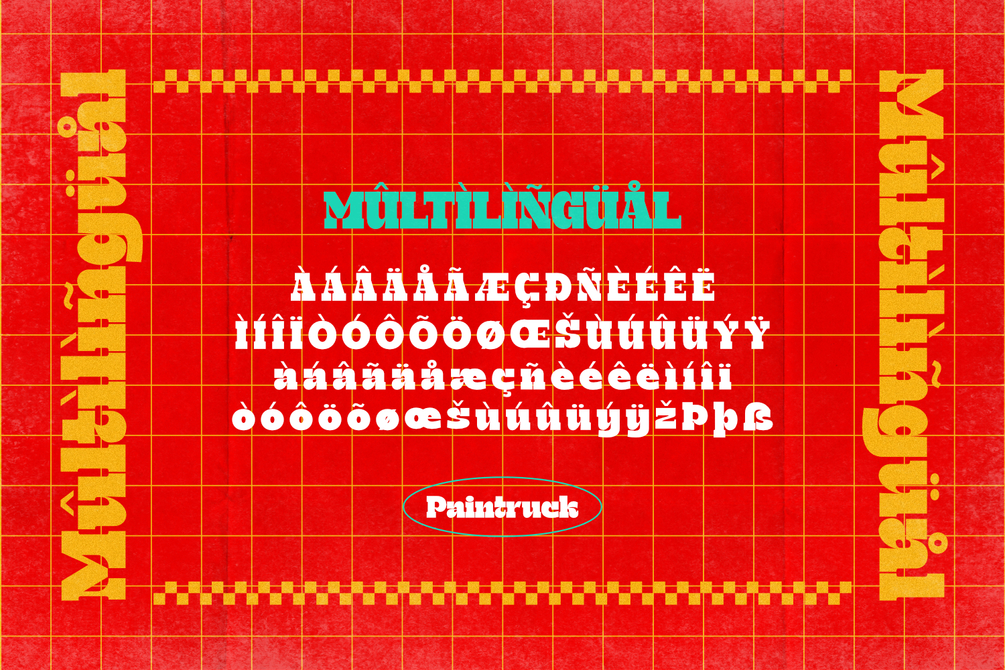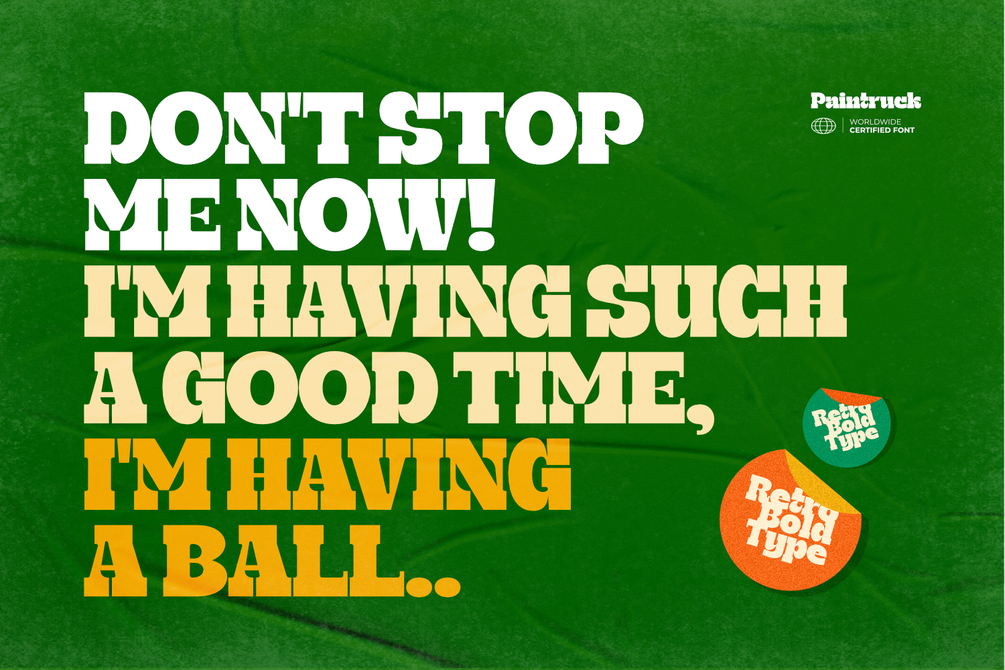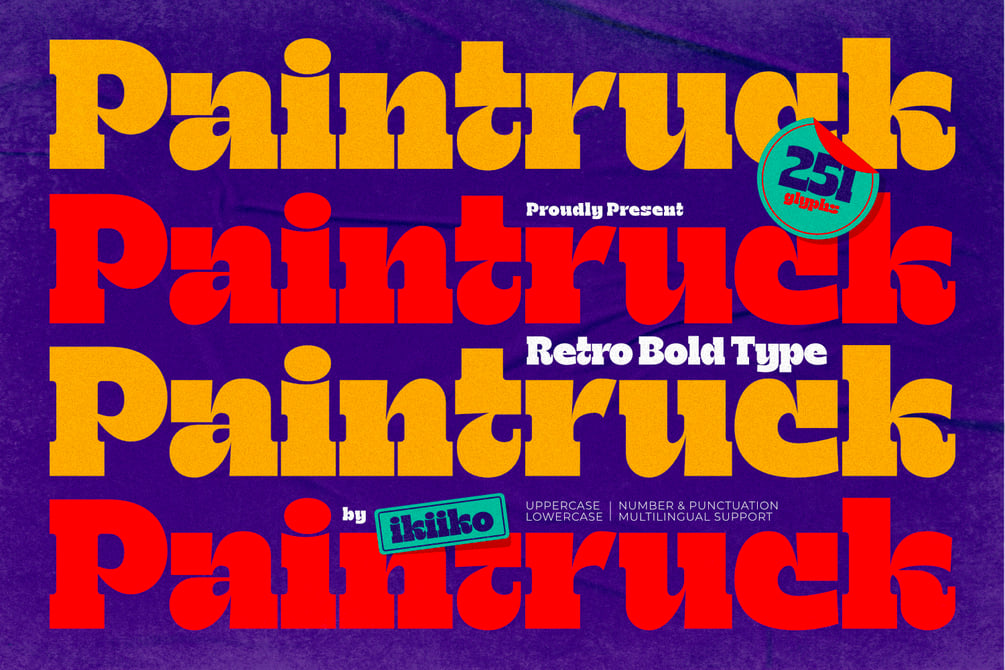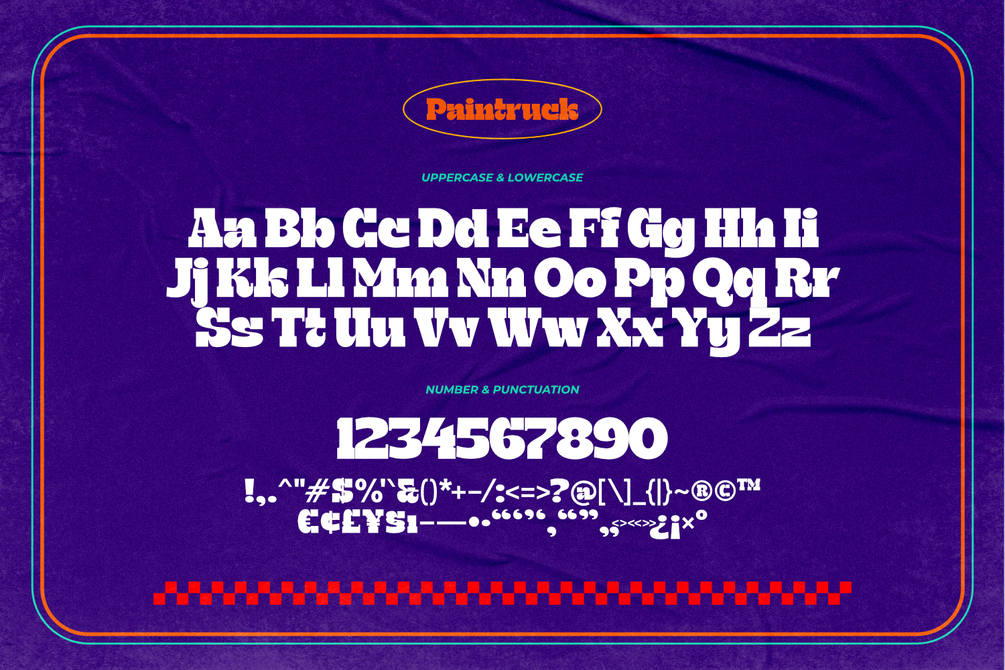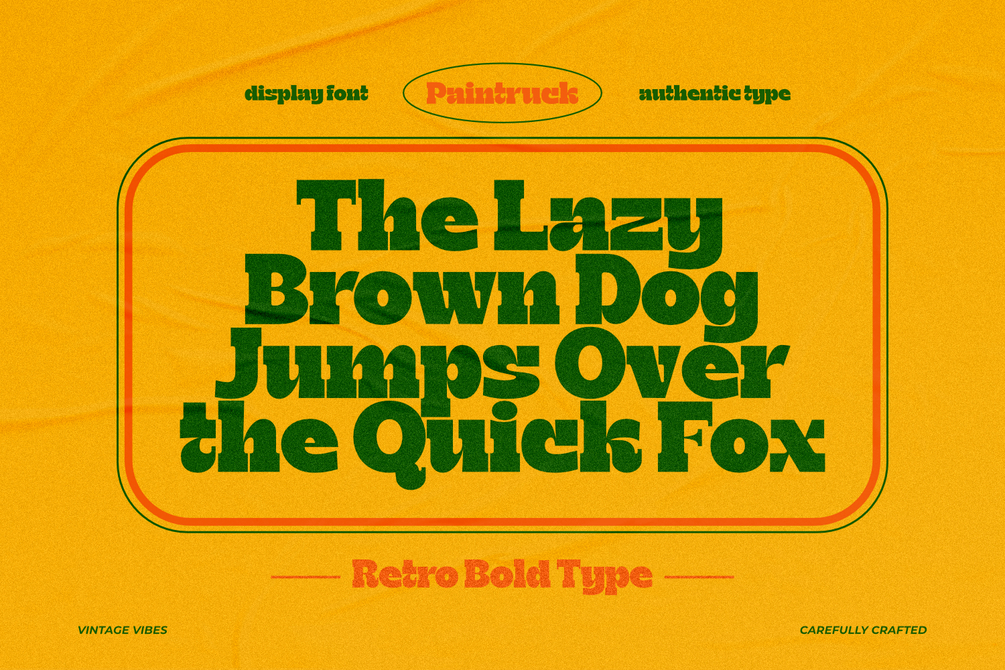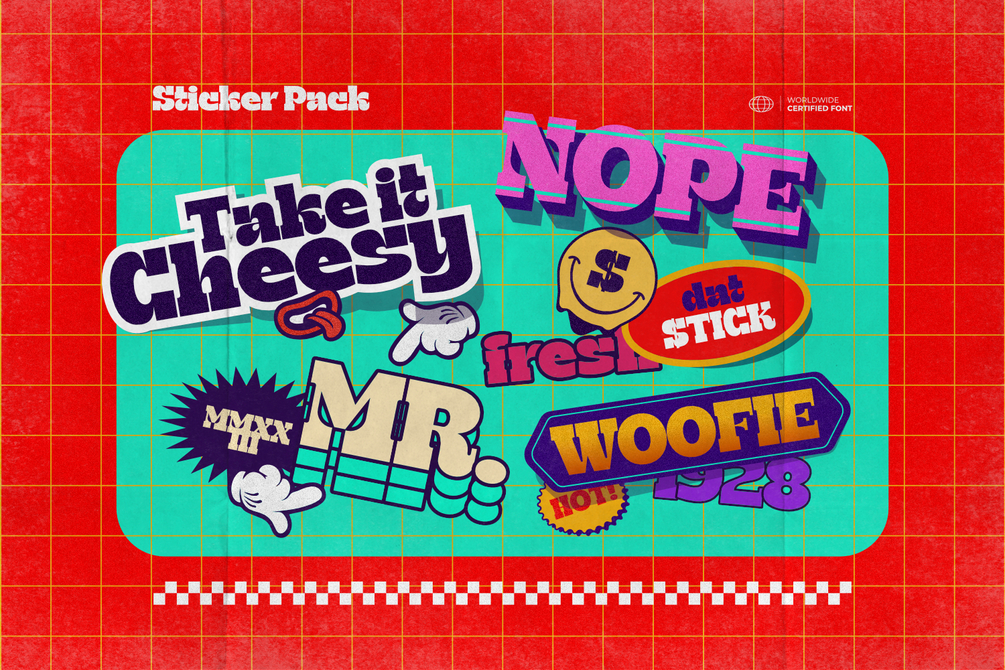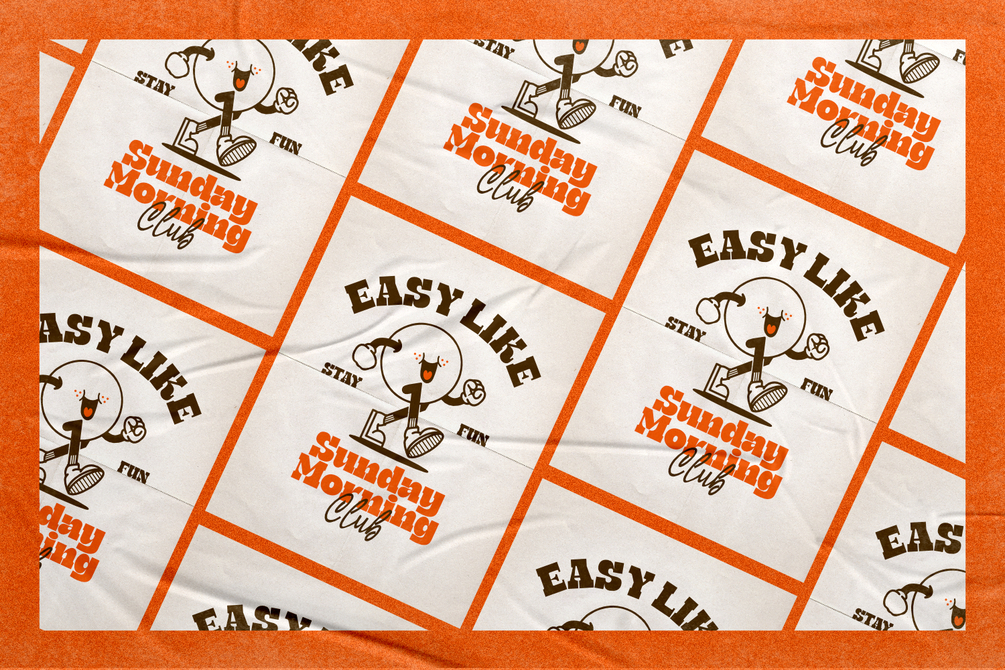
Paintruck - Retro Bold Font
Proudly present Paintruck - Retro Bold Font, created by ikiiko.
A bold vintage serif font with a strong, powerful style that instantly evokes a sense of the past with its pop-retro vibes. The pop retro vibes of the font add a lively energy to any project.
The ability of Paintruck to conjure a sense of nostalgia while still seeming current and new is what truly sets it distinct. For branding, packaging, posters, and social media images that want to stand out from the crowd, the font's pop throwback vibes breathe a lively spirit into every project. Paintruck has a timeless charm that appeals to a wide audience, whether it is employed for a retro-themed event, a modern apparel brand, or a café with a vintage theme.
This typeface is perfect for an vintage stuff, retro poster layout, magazine design, packaging, food & beverages and also good for quotes, or simply as a stylish text overlay to any background image.
• Uppercase & Lowercase
• Number & Punctuation
• Multilingual Support